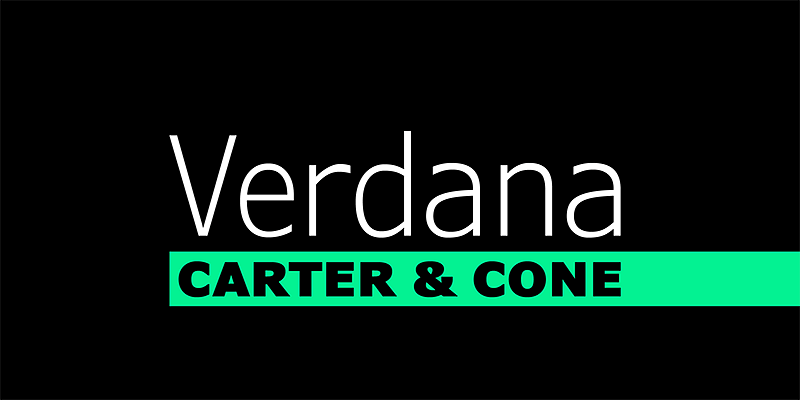
Verdana Pro Font Free Download is a refined, expanded version of the classic Verdana typeface—enhanced for even better screen readability, language support, and typographic versatility. Originally designed by Matthew Carter for Microsoft, Verdana was made for digital clarity, and the Pro version takes that legacy further with additional weights, styles, and improved spacing for modern design needs.
With its generous x-height, wide letterforms, and clear spacing, Verdana Pro Font Free Download is ideal for web design, user interfaces, accessibility-focused applications, presentations, and long-form reading—especially in digital formats. The Pro version includes new weights like Light, SemiBold, and Black, along with italics, allowing for a broader range of expression in your typography.
Whether you're building a clean website, designing software UI, or preparing corporate materials, Verdana Pro offers high legibility, professional polish, and multilingual support—all in a tried-and-true sans-serif package.
Elegant, readable, and digital-first, Verdana Pro is the evolution of a classic—ready to meet the demands of today’s interfaces, content, and communication design.